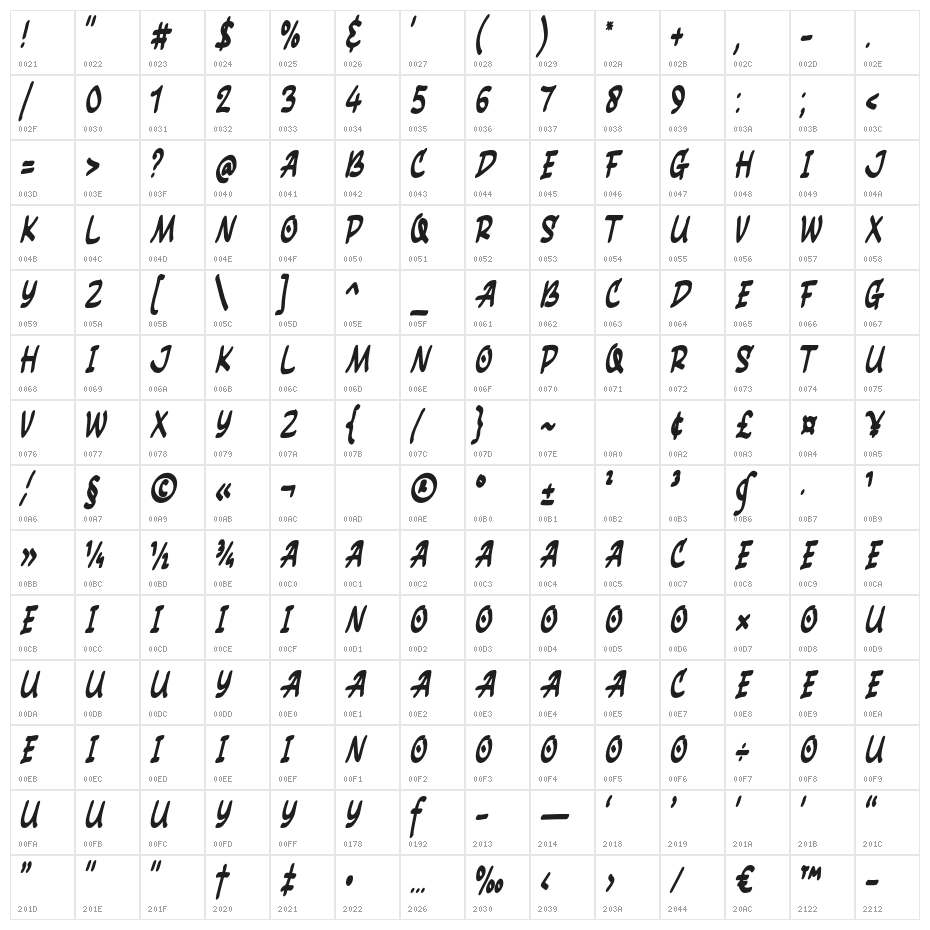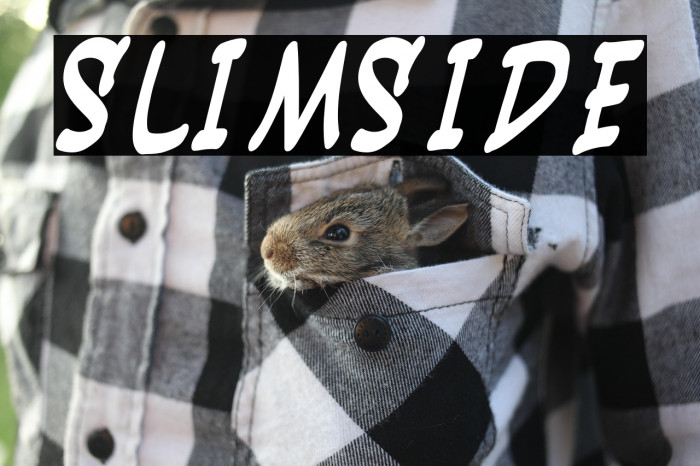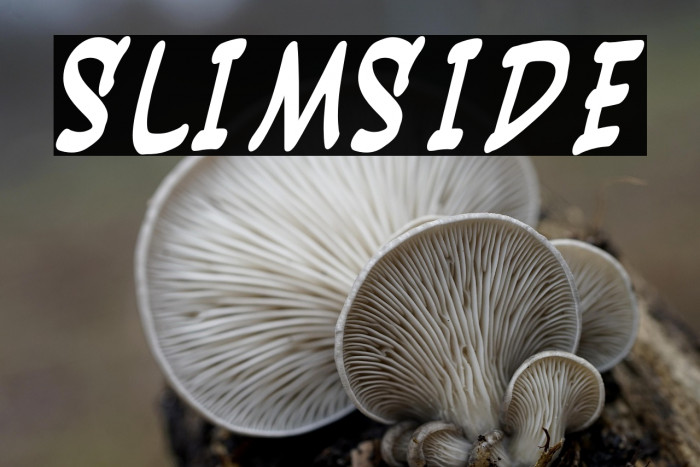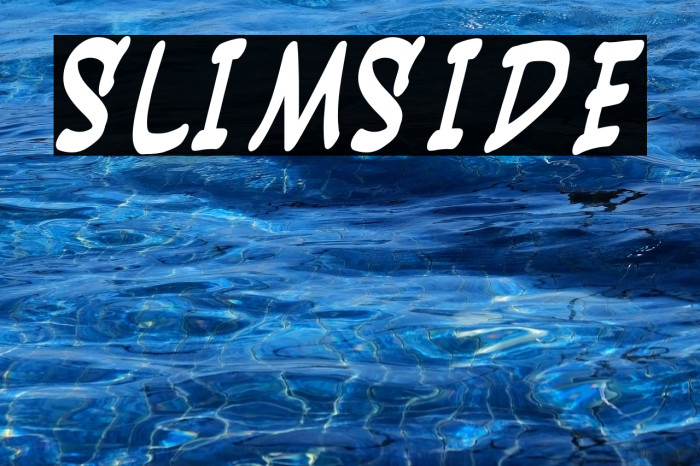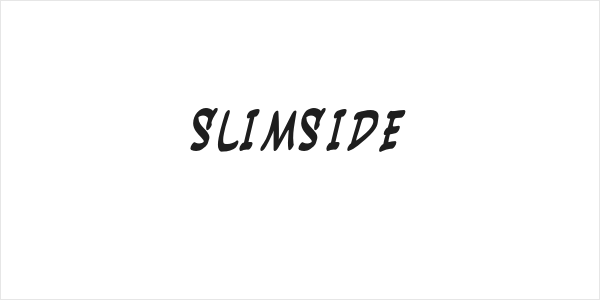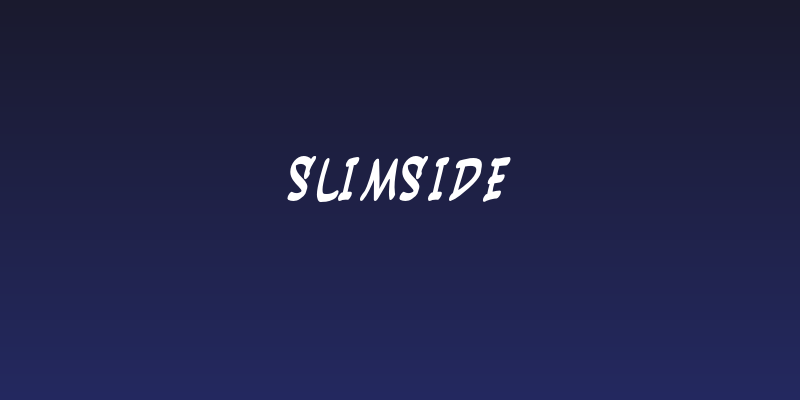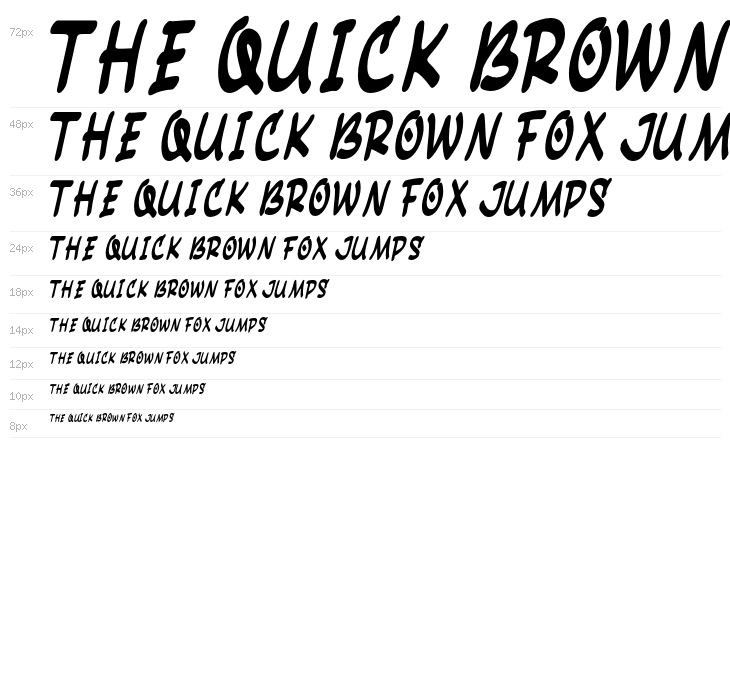
Slimside Font
Slimside Description
This font features a bold and dynamic script style, characterized by its fluid and energetic strokes. The letters are slightly slanted, giving a sense of motion and liveliness. The uppercase and lowercase characters maintain a consistent style, with rounded edges and a smooth flow. The numerals are equally expressive, matching the overall aesthetic of the alphabet. Special characters are designed with the same boldness and flair, making them stand out. This font is ideal for projects that require a touch of personality and vibrancy.
| Use Case | Logos, Headlines, Posters |
| Proposed Projects | Ideal for branding, posters, invitations, and any design needing a lively, personal touch. |